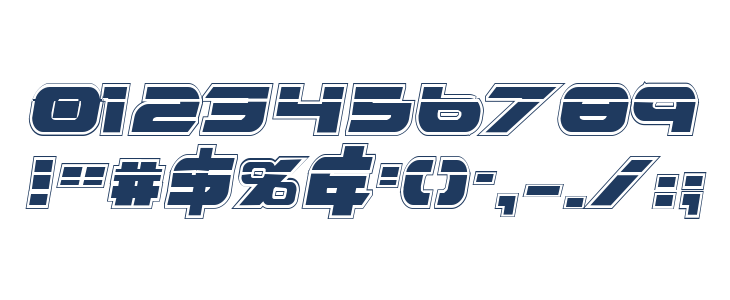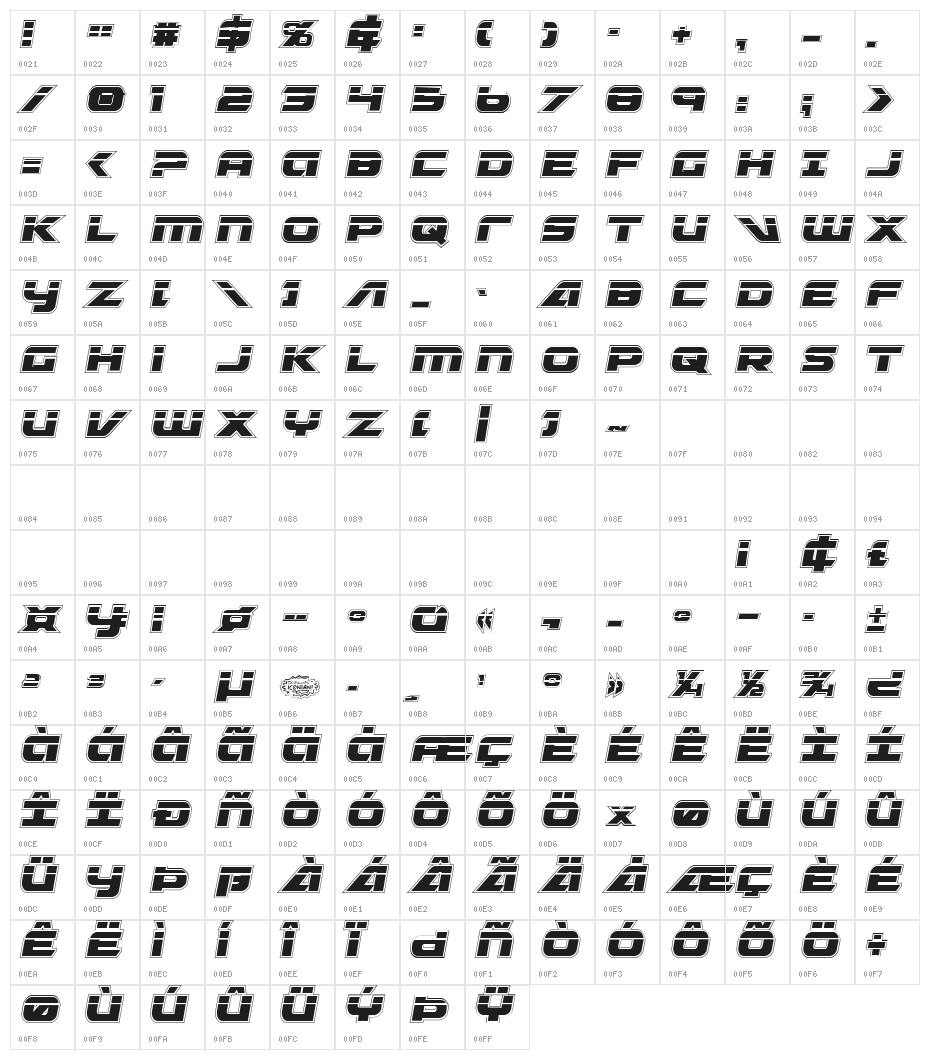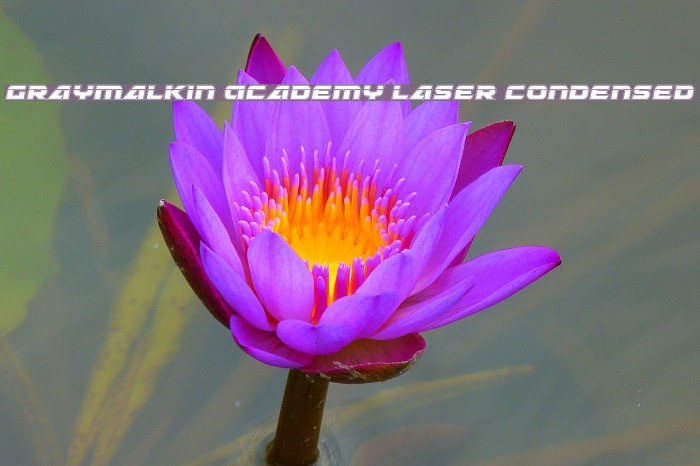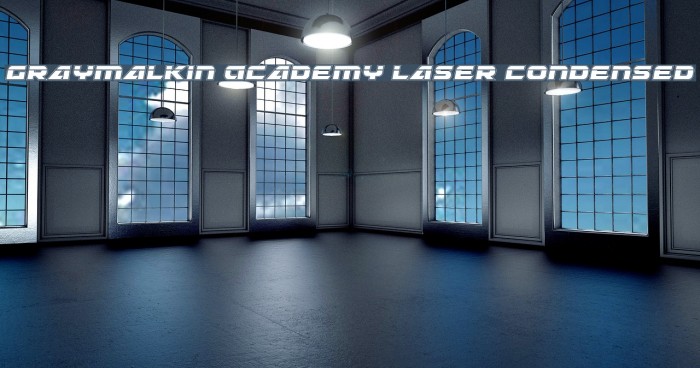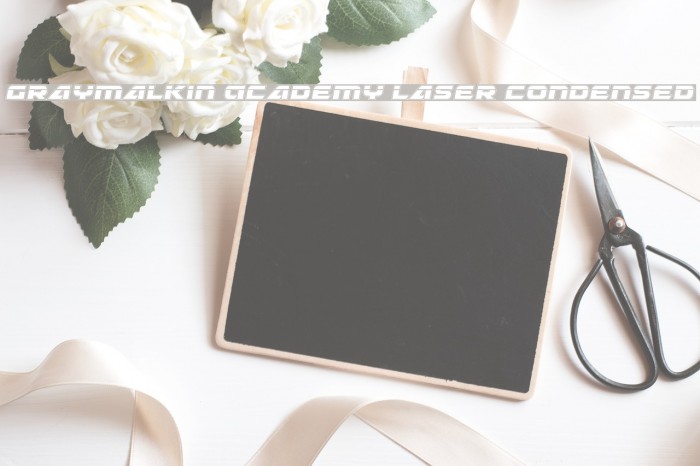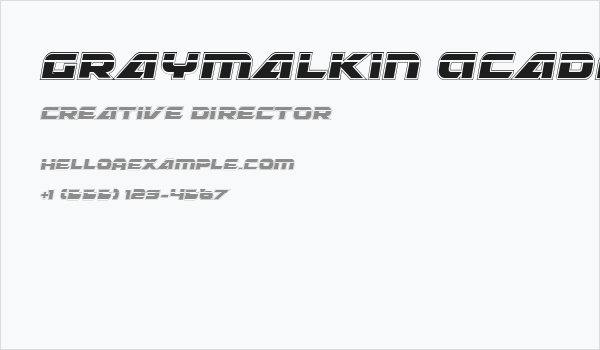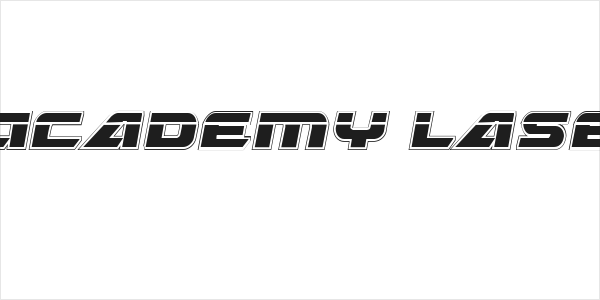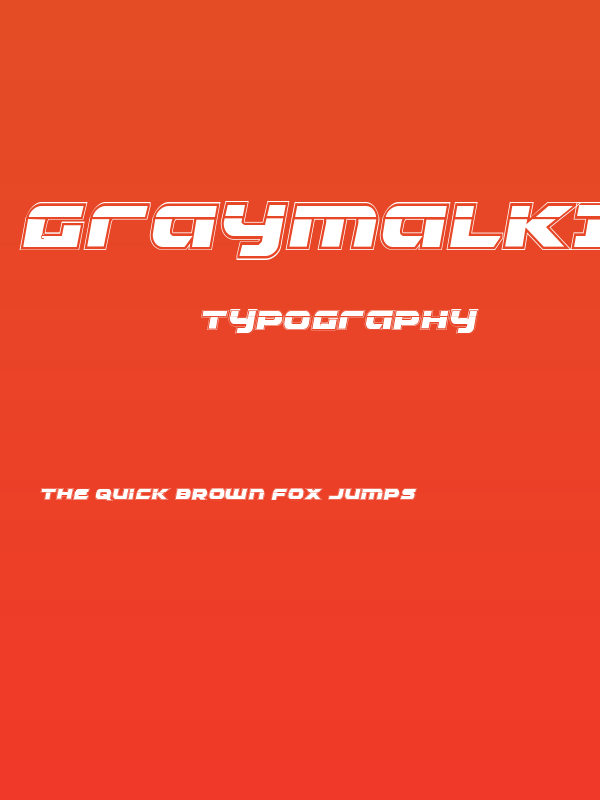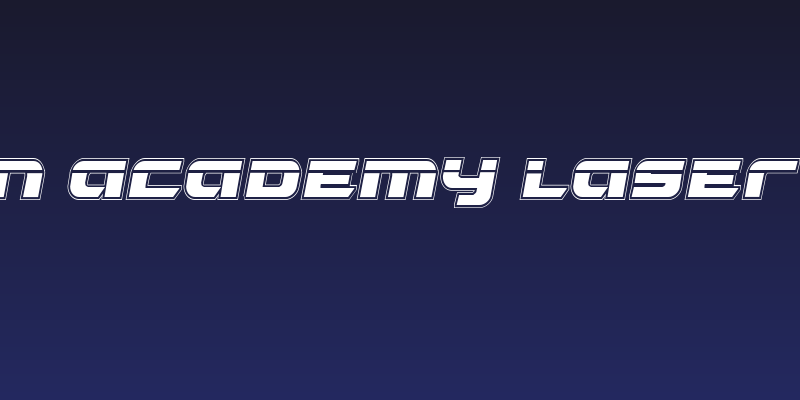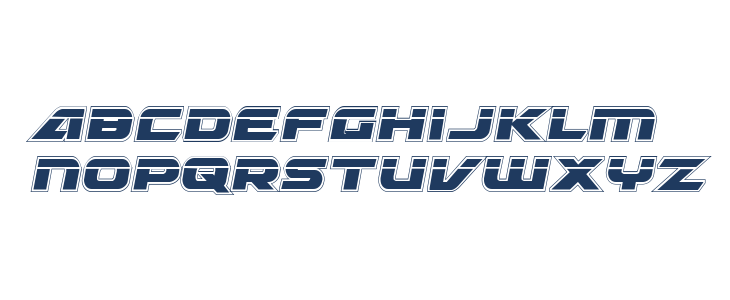
Graymalkin Academy Laser Condensed Font
Graymalkin Academy Laser Condensed Description
This font features a futuristic and bold design with a distinct condensed style. The characters are outlined with a double-line effect, giving them a three-dimensional appearance. The angular and geometric shapes of the letters convey a sense of modernity and technology. The uppercase and lowercase letters maintain a consistent style, with sharp edges and a uniform height. Numbers and special characters are designed to match the overall aesthetic, making this font suitable for projects that require a tech-savvy or sci-fi look.
| Proposed Projects | Ideal for technology-themed designs, sci-fi posters, video game graphics, and modern branding. |